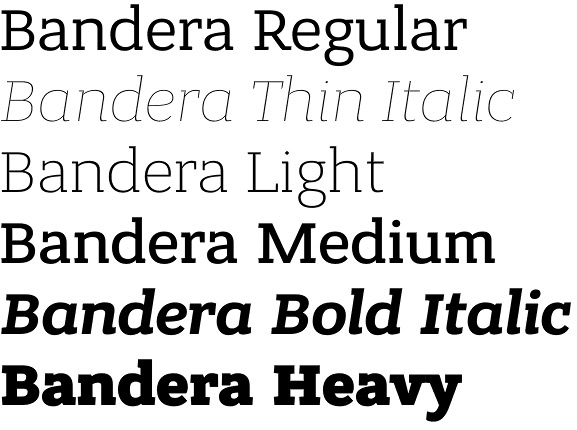
Bandera font
Bandera font by the Ukrainian type designer Andrij Shevchenko (AndrijType foundry, se also his AndrijScript Cyrillic font, Bandera Pro font, ZionTrain font) is a contemporary Serif family coming in six weights plus their italics. Bandera font family is a real workhorse in creating eye-catching headlines for posters and magazines whilst holding comfortable legibility in plain texts.
Bandera font shares main proportions with sans serif Osnova Pro typeface family and can perfectly pair it. It has Bandera Text and Bandera Display sister font families as well. Please check also Pro version for pan-European multilingual support (full Latin-Greek-Cyrillic).
Bandera is Spanish word for ‘flag’. And Bandera font family is a symbol of Ukrainian people fighting for freedom for many years now.